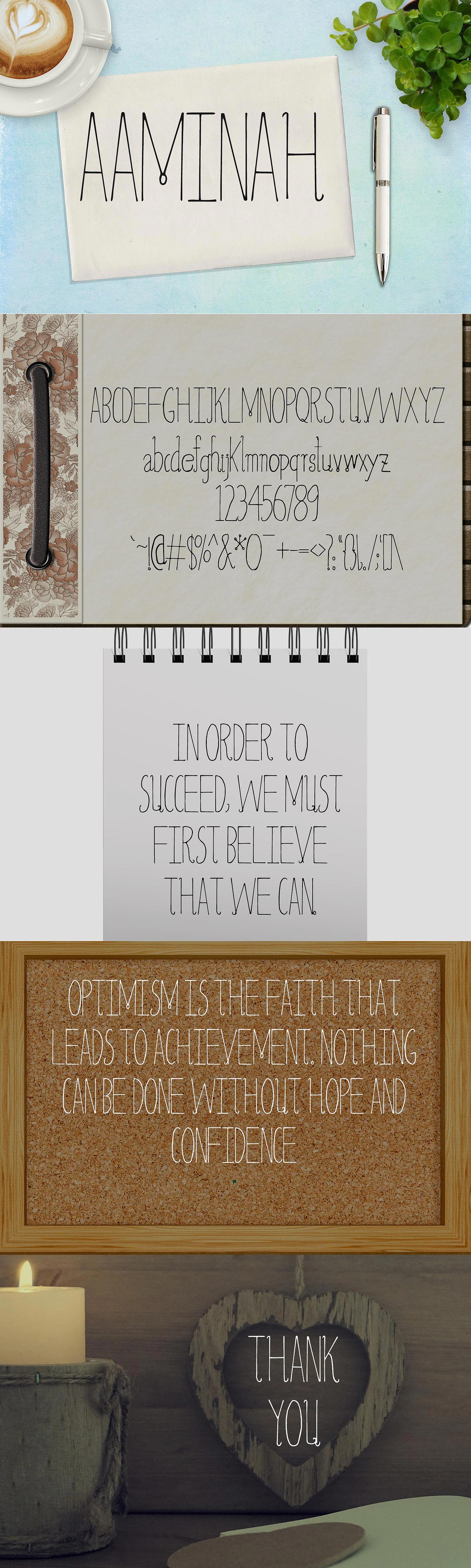
Aaminah Font
This graceful typeface is perfect for feminine branding, beauty salons, wellness centers, elegant invitations, luxury cosmetics, sophisticated stationery, boutique signage, personal brands, and refined lifestyle design applications.
What makes this font exciting is its feminine elegance combined with contemporary sophistication, offering designers a graceful typeface that captures delicate beauty while delivering refined charm and timeless feminine visual appeal.
The Aaminah font family includes light, regular, medium, bold, elegant, and script variations, providing complete feminine design solutions for creating sophisticated graceful visual identities.
Whether you're developing luxury beauty brands or crafting elegant lifestyle experiences, Aaminah Font Free Download brings exceptional feminine atmosphere and sophisticated authenticity to every application. This graceful typeface combines traditional feminine typography with contemporary elegant design, creating letterforms that inspire confidence and celebrate feminine beauty. The font's elegant construction and sophistication-ready details make it perfect for brands seeking immediate feminine recognition.
Aaminah Font features carefully crafted feminine styling with authentic elegant character that conveys genuine beauty expertise. Each character has been designed with delicate proportions and refined elements that enhance the graceful aesthetic. The font's feminine qualities make it particularly effective for beauty brands and wellness applications.
Professional designers choose Aaminah Font for projects requiring authentic feminine credibility and elegant atmosphere. Its sophisticated heritage makes it exceptionally well-suited for beauty salons, wellness centers, and luxury lifestyle brands. The font's versatile feminine variations allow designers to control the elegance intensity, from subtle graceful sophistication to full feminine celebration.
The complete Aaminah Font package offers extensive feminine ornaments and elegant decorative elements that enhance the sophisticated aesthetic. Advanced graceful features allow designers to create complex feminine effects with multiple beauty-inspired options. This comprehensive elegant toolkit ensures designers have everything needed to create authentic feminine communications that celebrate the enduring power of graceful beauty and sophisticated feminine expression.